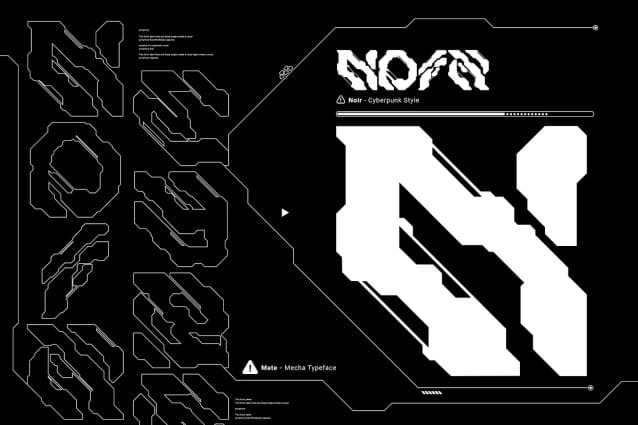
Mate Techno Font
Mate Techno Font – a modern mecha font that pushes the boundaries of typographic design. Inspired by the sleek aesthetics of mecha machinery, this font combines hexagonal formations with a futuristic and cyberpunk visual language, giving your projects a bold and captivating edge.
The “Mate Techno” font captures the essence of the future with its hexagonal shapes meticulously integrated into each character. The geometric precision and interconnectedness of these forms create a visually striking and dynamic appearance. The carefully crafted letterforms evoke a sense of advanced technology and mechanical elegance, making them perfect for projects seeking a contemporary and cutting-edge look.
With its cyberpunk-inspired design, “Mate Techno” transports your audience into a world where technology and imagination intertwine. The font’s sleek lines, sharp angles, and futuristic elements capture the essence of a dystopian future, adding an air of intrigue and sophistication to your designs.
The unique hexagonal feels of “Mate Techno” create a sense of interconnectedness and harmony within the letterforms. Each character seamlessly integrates into the next, forming a unified and visually captivating composition. Whether used in titles, logos, or headlines, this font demands attention and conveys a sense of progress and innovation.
Unleash the power of “Mate Techno” in your design projects to evoke the spirit of mecha aesthetics. Whether you’re working on sci-fi book covers, gaming interfaces, futuristic posters, or branding for technology-driven companies, this font will effortlessly infuse your creations with a modern, cyberpunk-inspired charm.
With “Mate Techno,” you have the perfect tool to unleash your creativity and redefine the boundaries of typographic expression. Let this modern mecha font propel your designs into a realm where imagination meets technology, and the future is brought to life in stunning visual form.
This font is perfect for Logo designs, Gaming branding, Technology magazines, Sci-fi book covers, Cyberpunk posters, Futuristic product packaging, Robotics company branding, Virtual reality interfaces, Futuristic event invitations, Mecha-inspired apparel branding, Tech-themed websites, Dystopian novel covers, Futuristic movie titles, Cybernetic-themed party invitations, Gaming convention banners and many more!